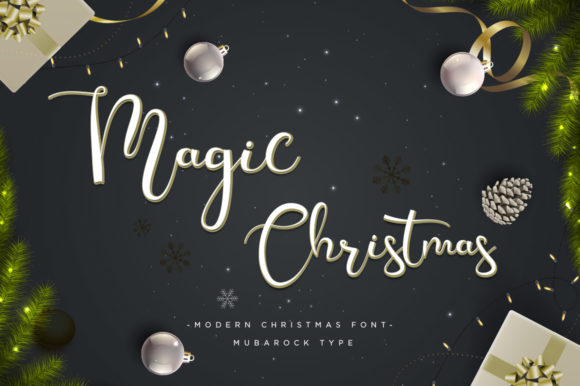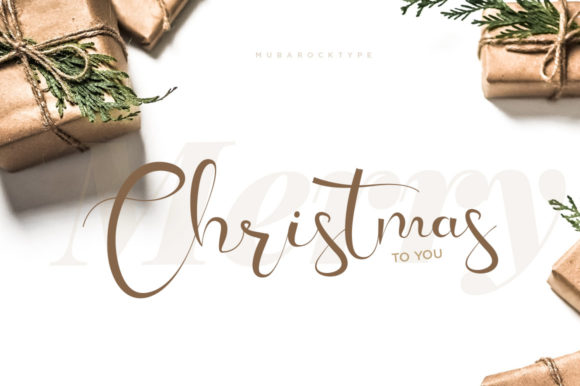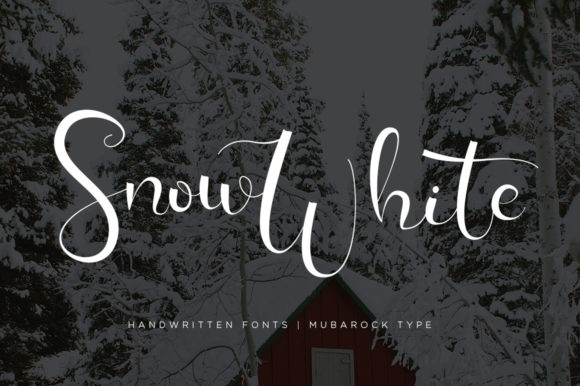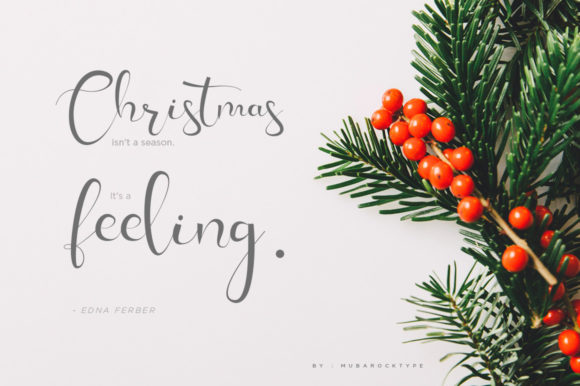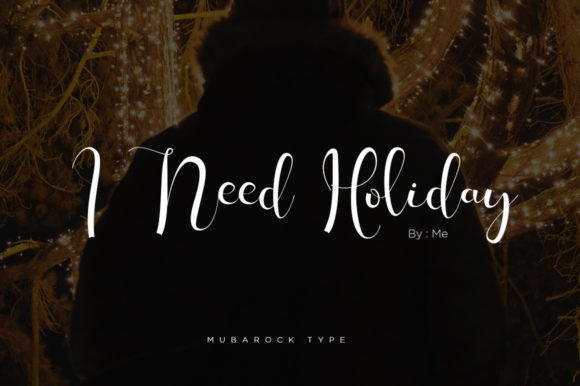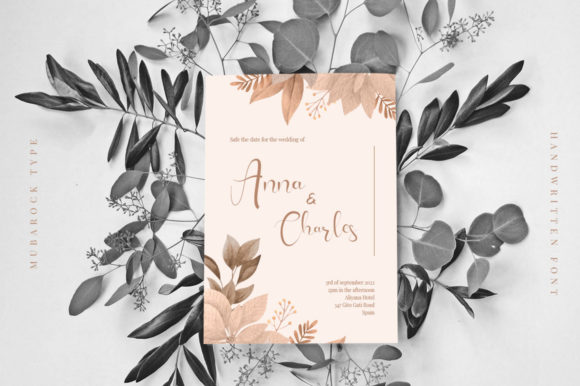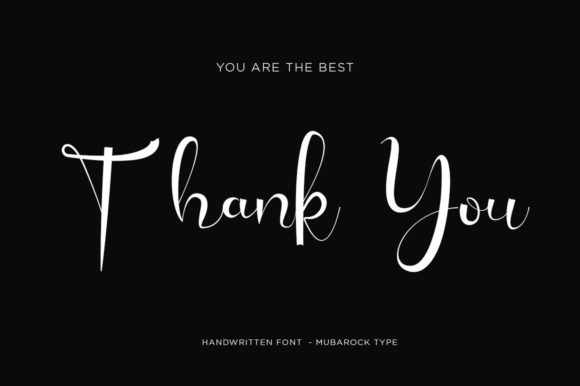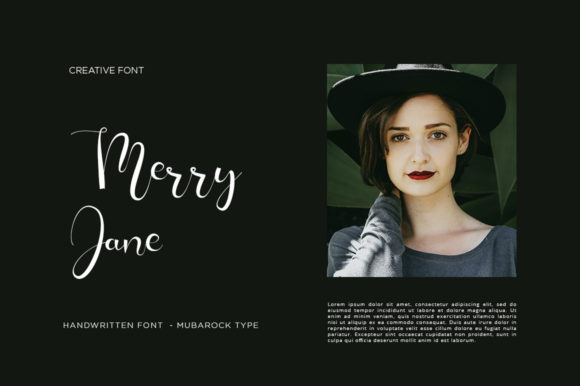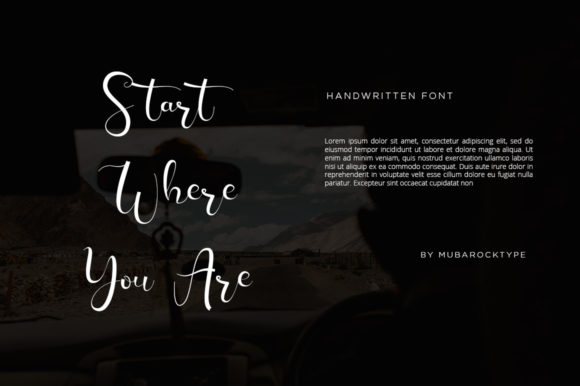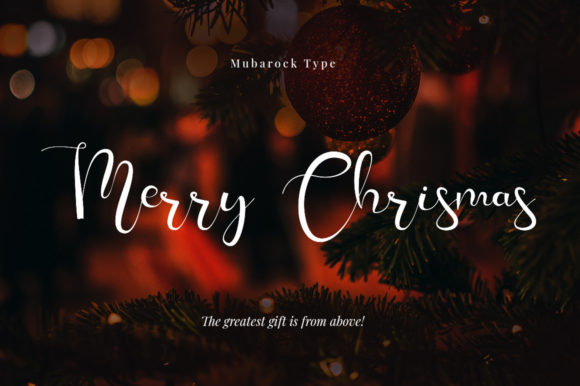
Magic Christmas Font
Magic Christmas is an annual Christmas script font with a delicate style. It looks stunning on wedding invitations, thank you cards, quotes, greeting cards, logos, business cards and every other design which needs a handwritten touch.